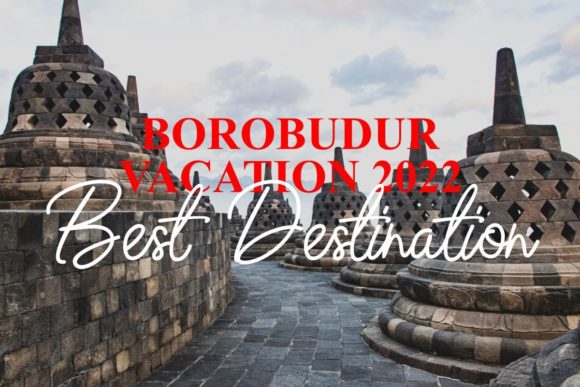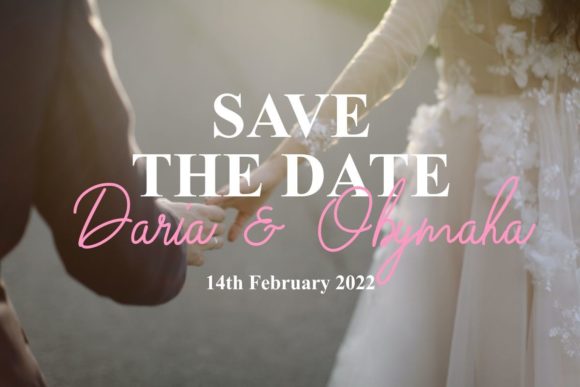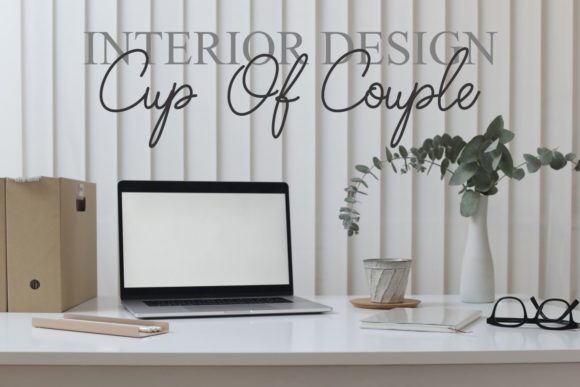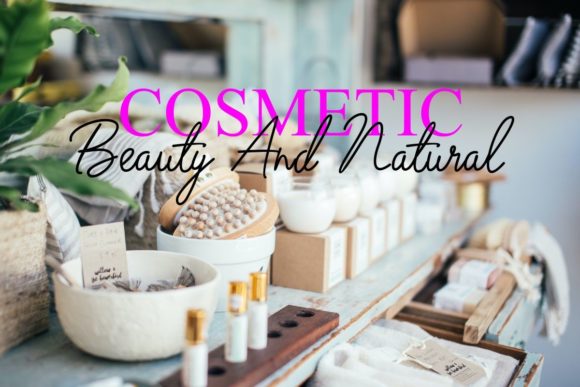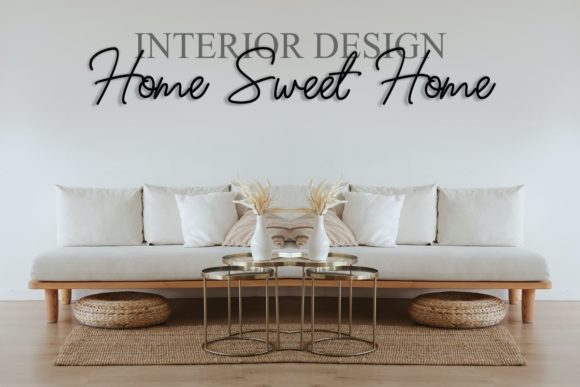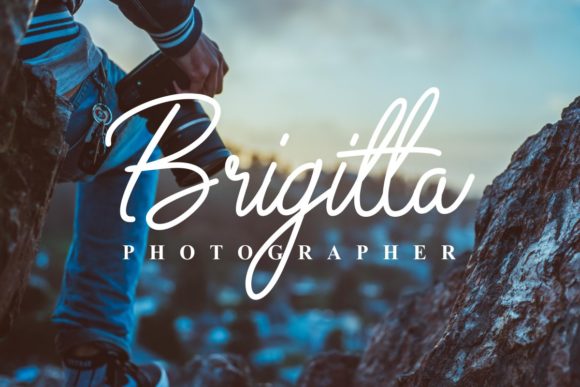
Introducing Brigitta Signature Font: Elevate Your Designs with Elegance
Are you a designer, crafty enthusiast, or business owner looking for a font that exudes sophistication and style? Look no further than Brigitta Signature Font, a stunning handwritten font that is sure to become your new favorite. With its perfect blend of classic calligraphic influences and modern flair, Brigitta Signature is the ideal choice for anyone seeking to add a touch of elegance to their designs.
The Art of Handwritten Typography
Handwritten fonts have a unique ability to add a personal touch to any design, making them feel more approachable and human. Brigitta Signature Font takes this concept to the next level with its exquisite, hand-crafted design. Each letter is carefully crafted to showcase a sense of fluidity and movement, creating a beautiful, organic feel that is sure to captivate your audience.
Classy Calligraphic Influences
Brigitta Signature Font draws inspiration from traditional calligraphy, incorporating classic elements that evoke a sense of luxury and refinement. The font’s calligraphic influences are evident in its elegant letterforms, subtle flourishes, and precise connections. These features not only add visual interest but also create a sense of continuity, making the font perfect for longer texts and headings.
Contemporary and Fresh
While Brigitta Signature Font pays homage to traditional calligraphy, it also boasts a distinctly modern feel. The font’s clean lines, balanced proportions, and cleverly designed letterforms ensure that it remains fresh and relevant in today’s fast-paced design landscape. Whether you’re creating a logo, branding materials, or social media graphics, Brigitta Signature Font is sure to make a lasting impression.
Brigitta Signature Font is a versatile design asset that can be used in a wide range of creative projects. Designers will appreciate the font’s flexibility and scalability, making it suitable for both digital and print applications. Crafters, meanwhile, will love the font’s whimsical, handmade feel, which is perfect for DIY projects, such as handmade cards, scrapbooking, and journaling.
Key Features of Brigitta Signature Font
• Exquisite handwritten design: Each letter is carefully crafted to create a beautiful, organic feel.
• Classy calligraphic influences: Elegant letterforms, subtle flourishes, and precise connections evoke a sense of luxury and refinement.
• Contemporary and fresh: Clean lines, balanced proportions, and cleverly designed letterforms ensure a modern feel.
• Versatile and scalable: Suitable for both digital and print applications, including logos, branding materials, and social media graphics.
How to Use Brigitta Signature Font
Brigitta Signature Font can be used in a variety of creative projects, including:
• Logo design: Create a lasting impression with a custom logo that showcases your brand’s personality.
• Branding materials: Use Brigitta Signature Font to create business cards, letterheads, and other marketing materials that exude elegance and sophistication.
• Social media graphics: Add a touch of personality to your social media posts with custom graphics that feature Brigitta Signature Font.
• DIY projects: Use Brigitta Signature Font to add a personal touch to handmade cards, scrapbooking, and journaling projects.
Font Name Brigitta Signature Font
Author Bintang Creatype
Brigitta Signature Font is a stunning handwritten font that is sure to become a favorite among designers and crafters. With its perfect blend of classic calligraphic influences and modern flair, this font is ideal for anyone seeking to add a touch of elegance to their designs. Whether you’re creating a logo, branding materials, or social media graphics, Brigitta Signature Font is the perfect choice. So why wait? Download Brigitta Signature Font today and elevate your designs to new heights!